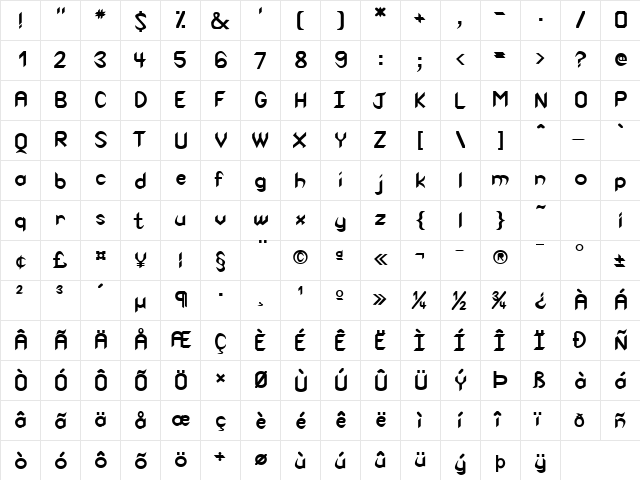
Spike-Condensed Bold
Design Context for Spike-Condensed Typeface
Spike-Condensed is a composed and adaptable typeface that performs quietly and consistently across a wide range of design contexts. Its bold stroke weight gives it real presence on the page. The condensed width makes it efficient for tight spaces without sacrificing legibility.